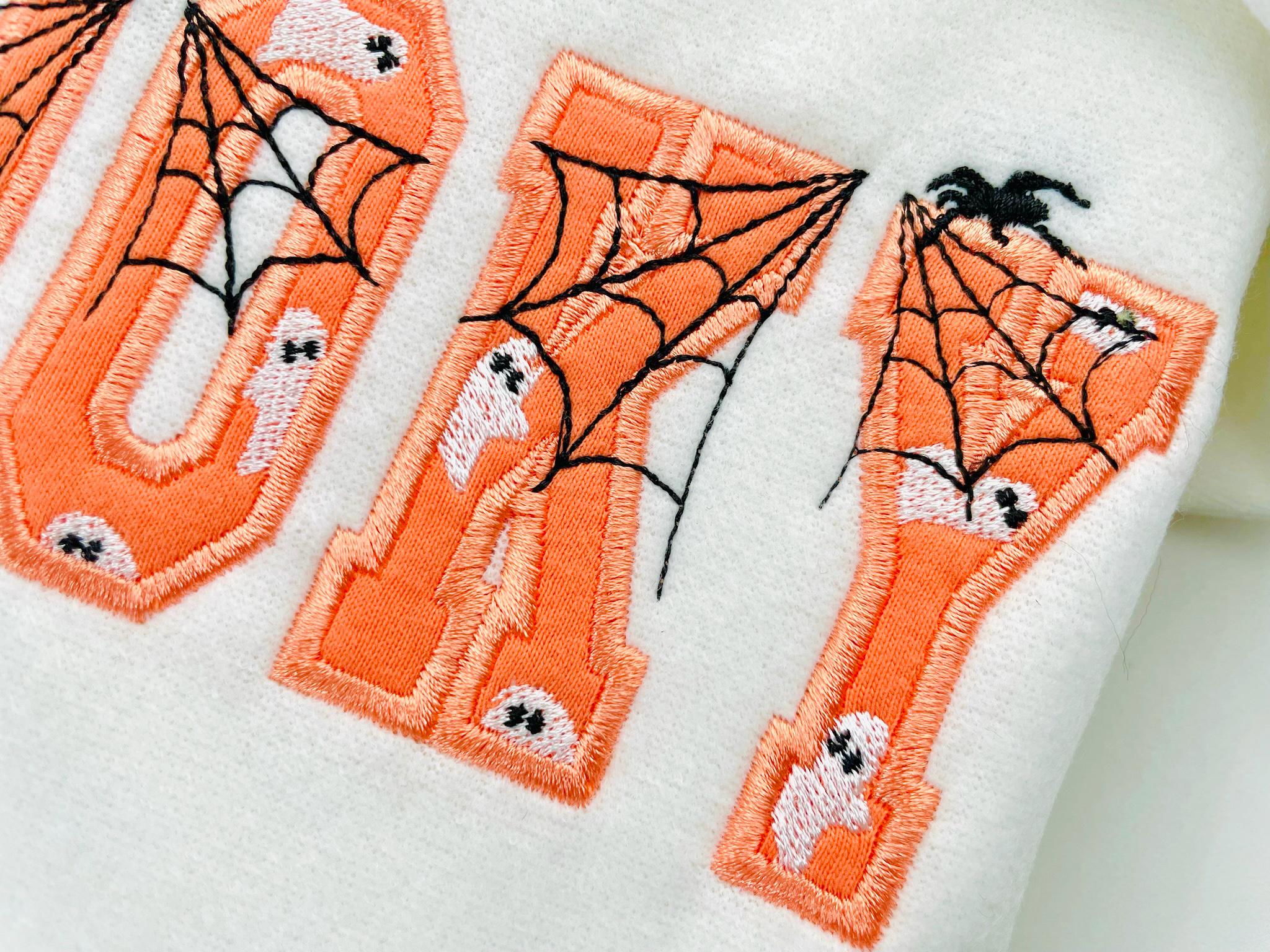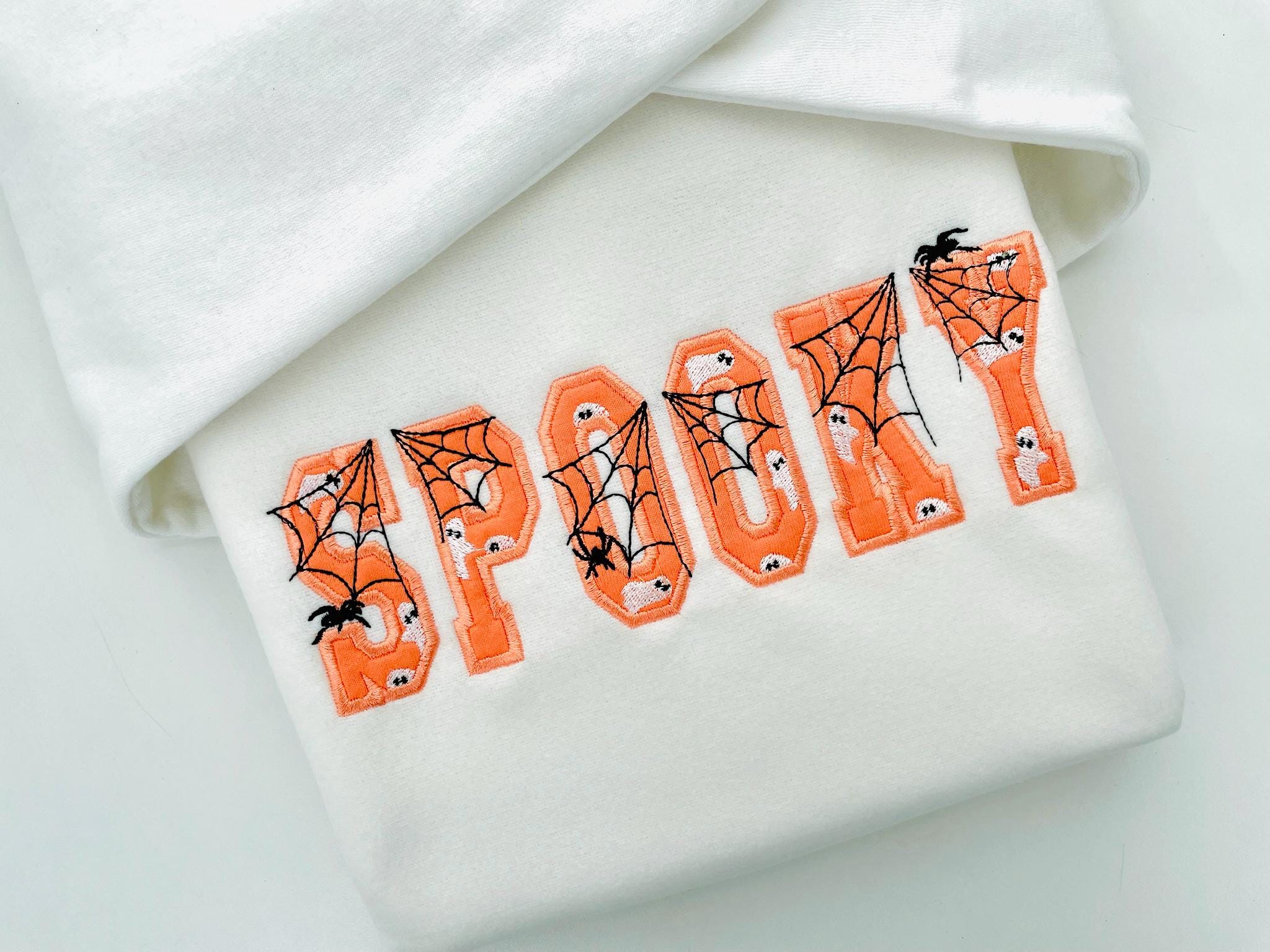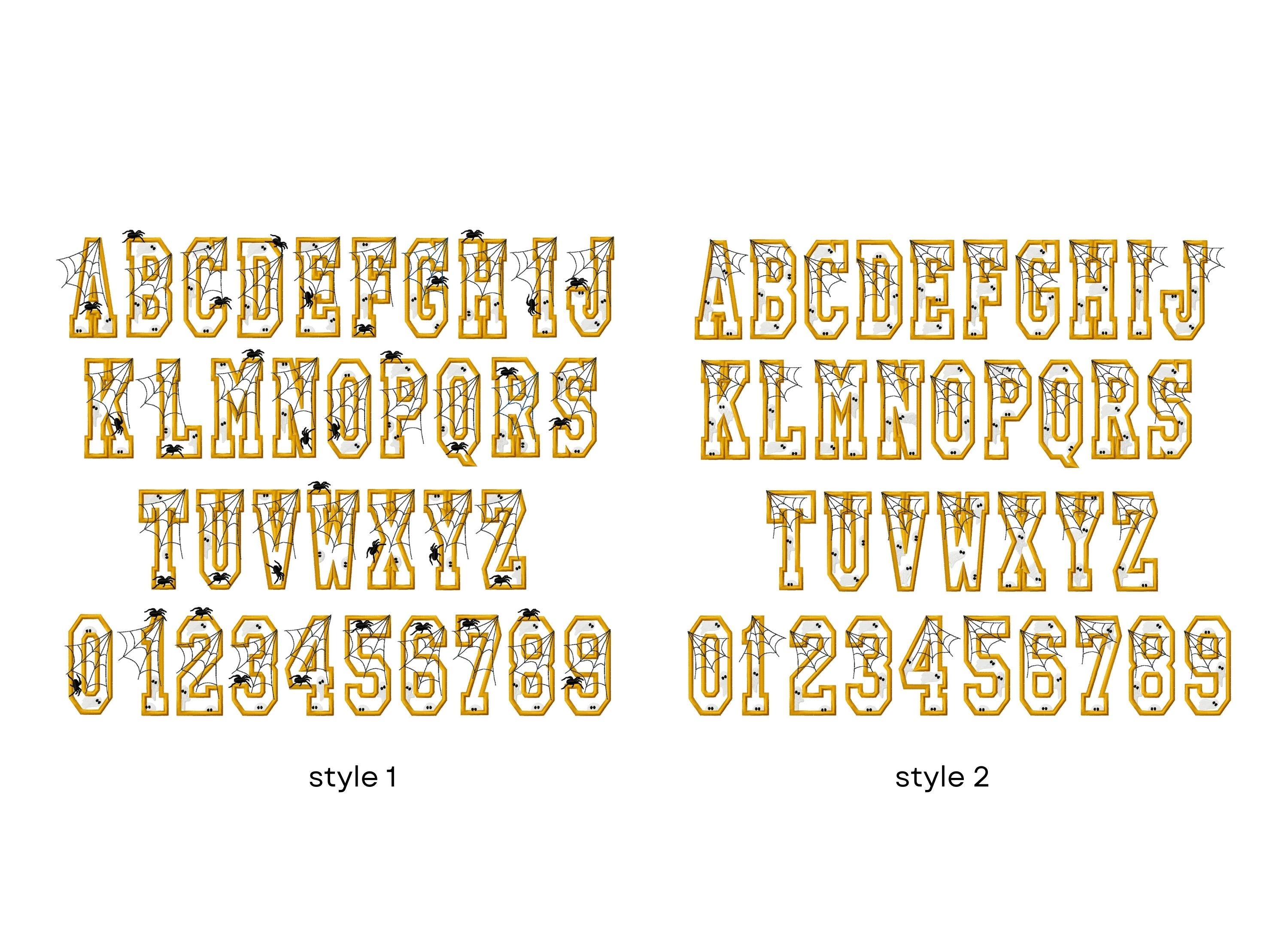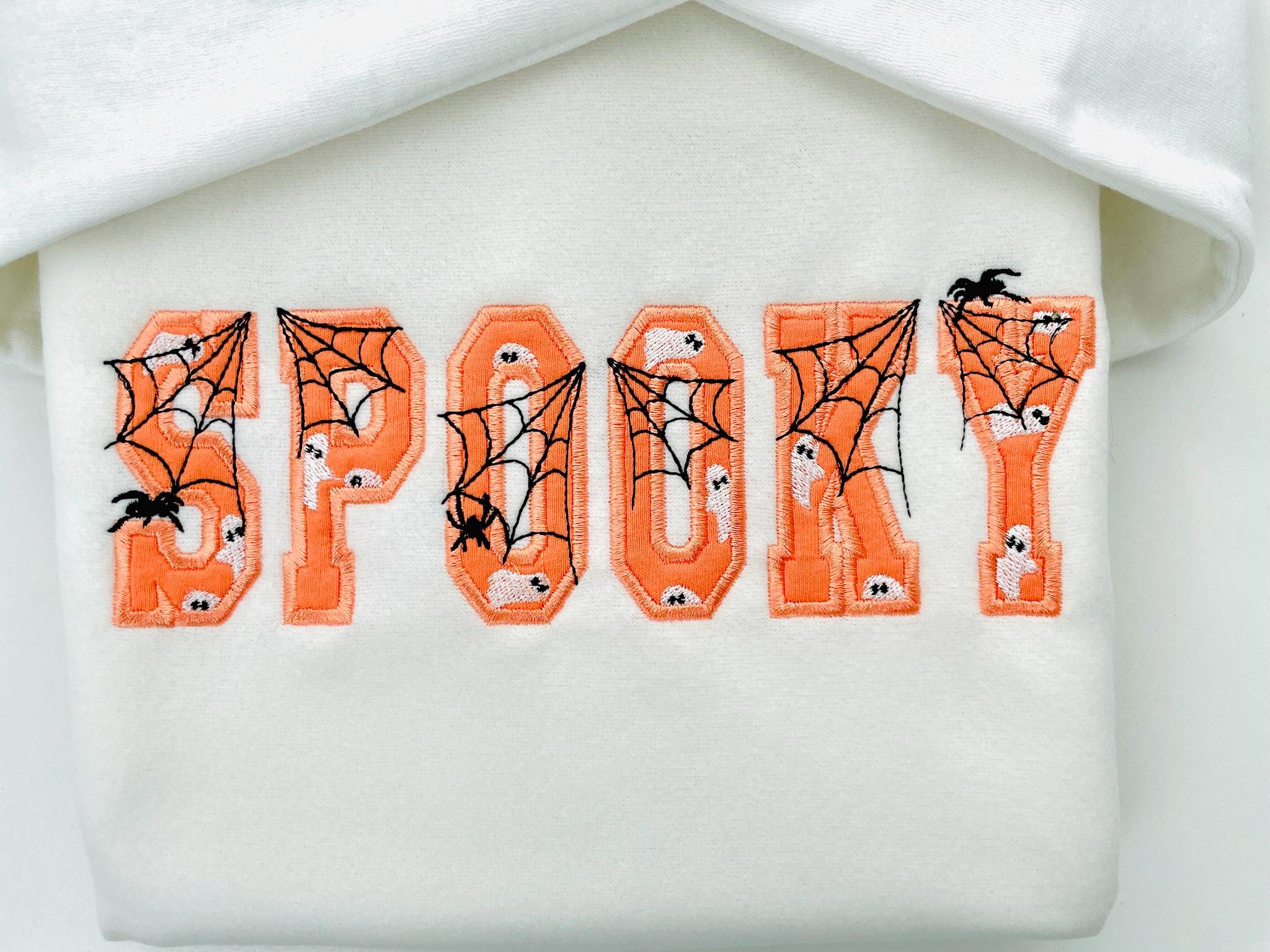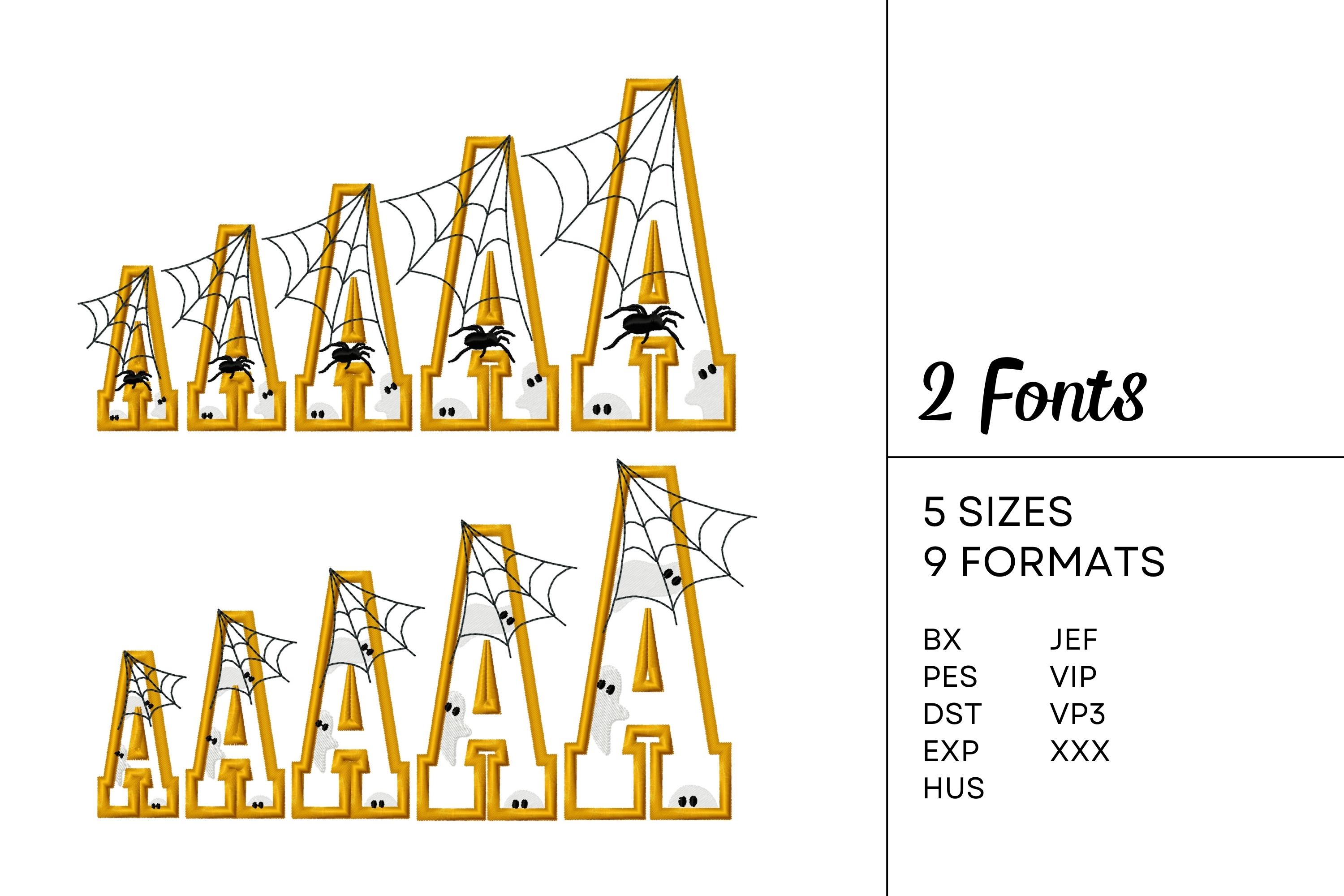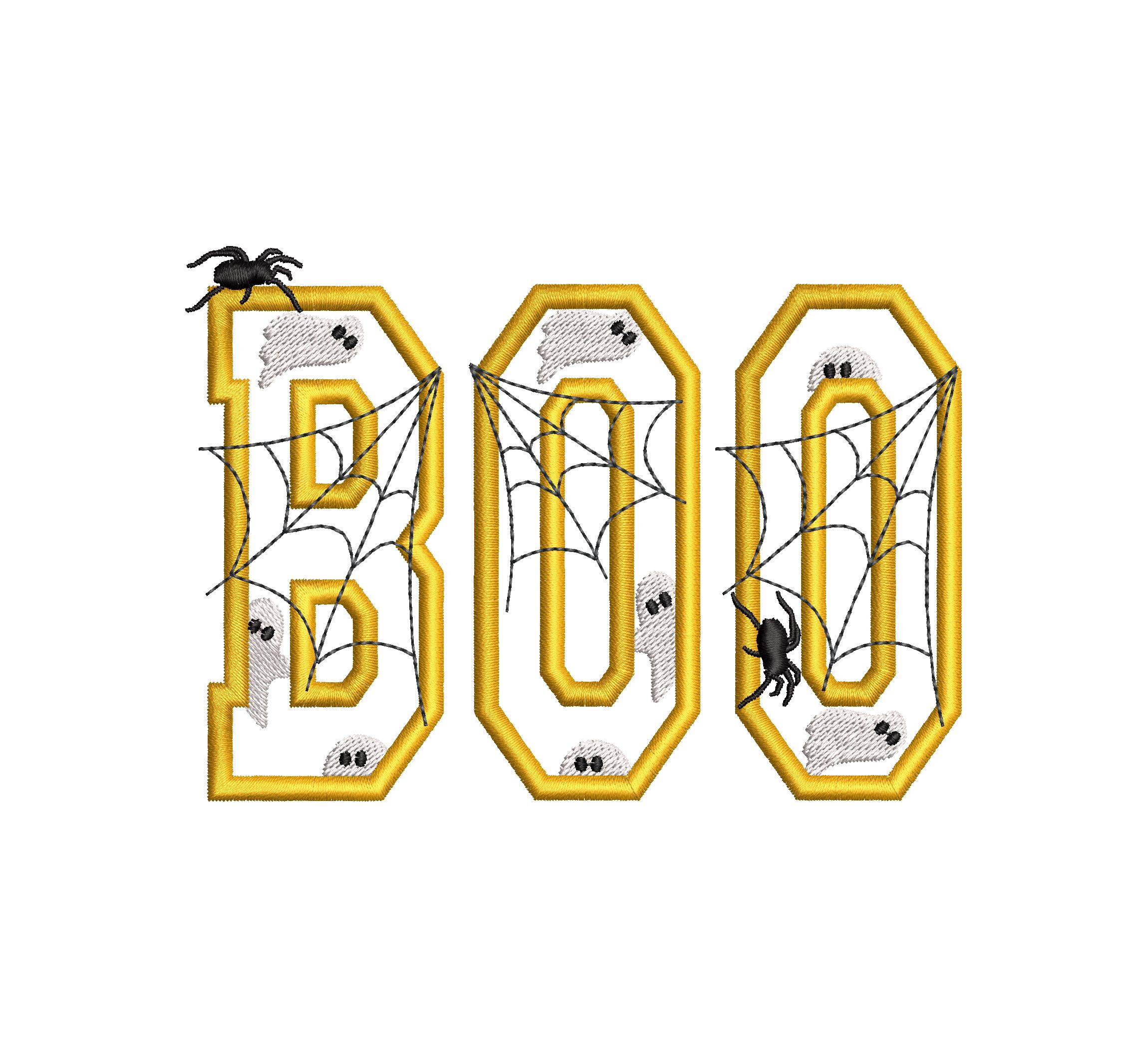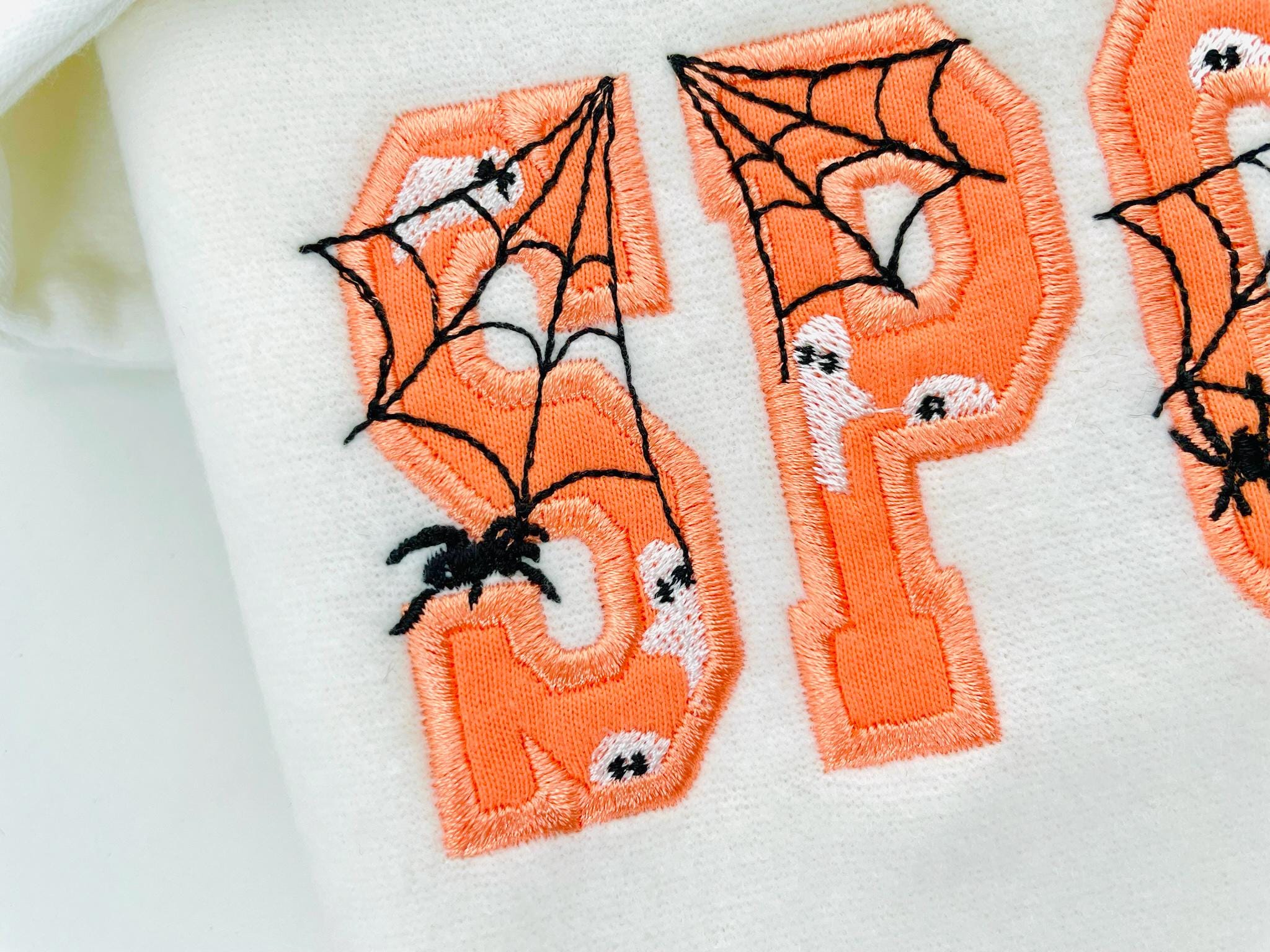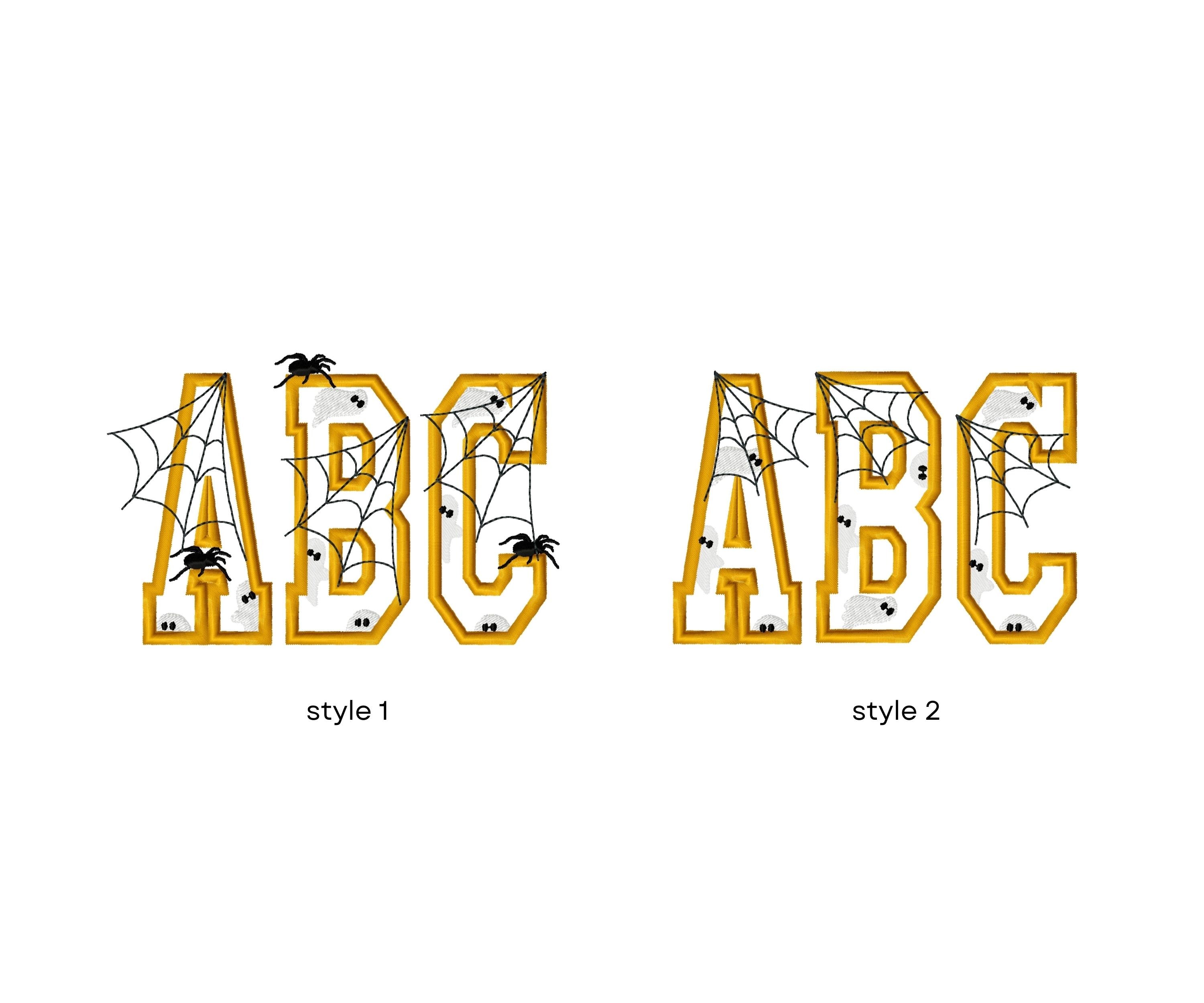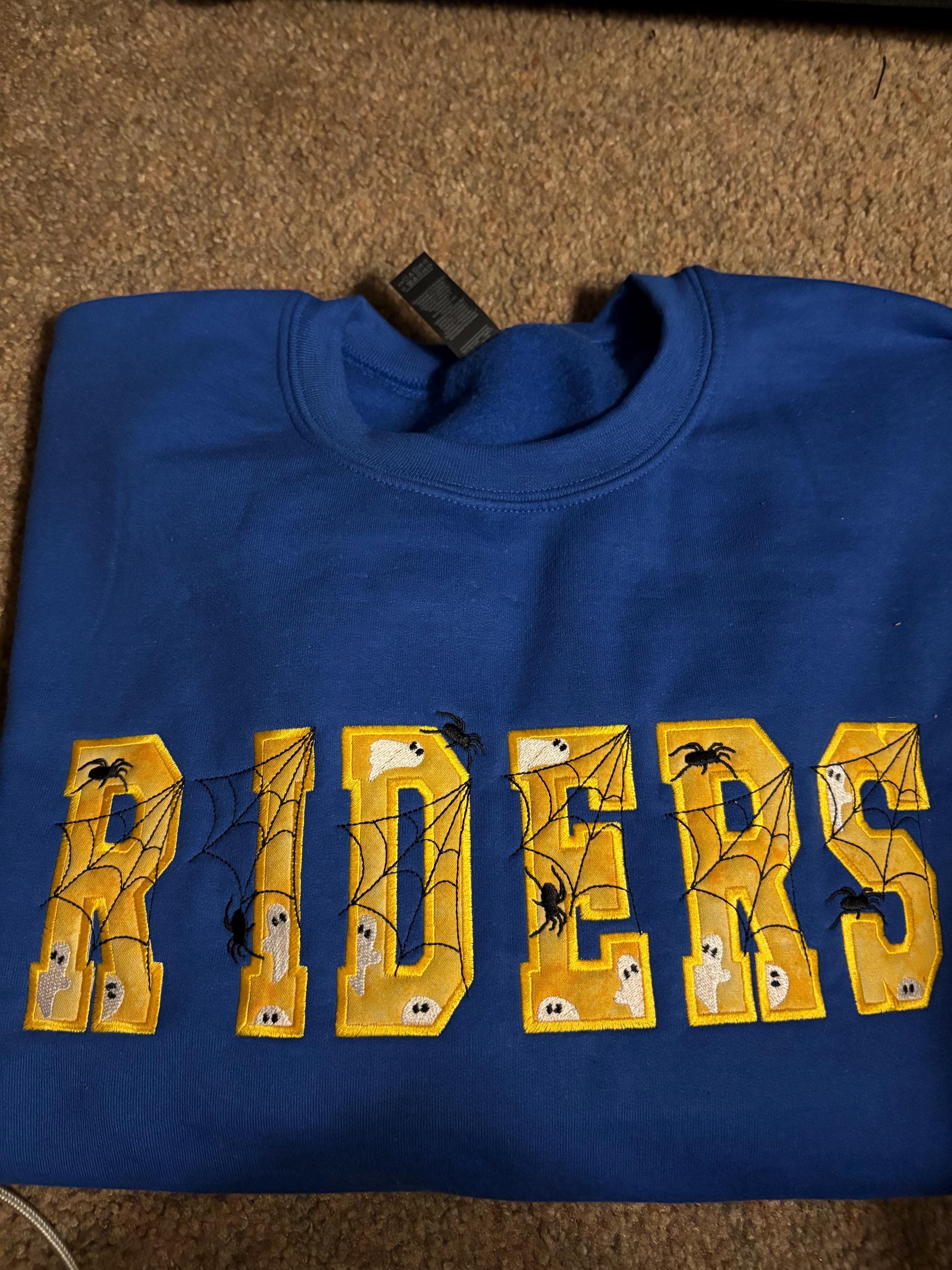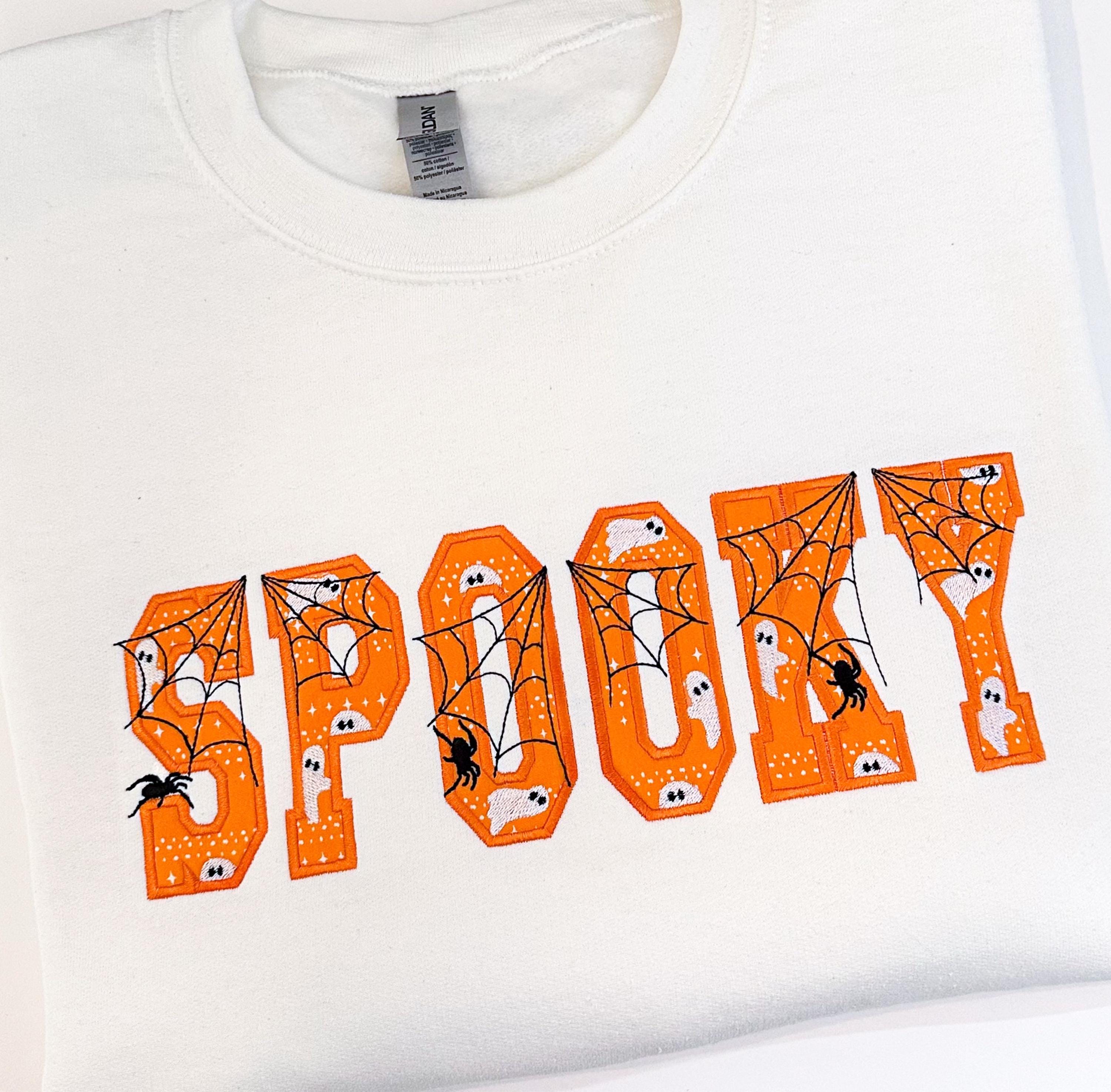
Halloween Spiderweb Ghost FONT Applique Set of 2 Varsity Collegiate Block Alphabet Monogram machine embroidery designs sizes 2.4 up to 5.3 inches
Applique design
Entire alphabet capital letters A-Z, and numbers 0-9.
Included 2 Fonts:
* Font with peeking Ghost, Spiderweb, and Spider
* Font with peeking Ghost and Spiderweb